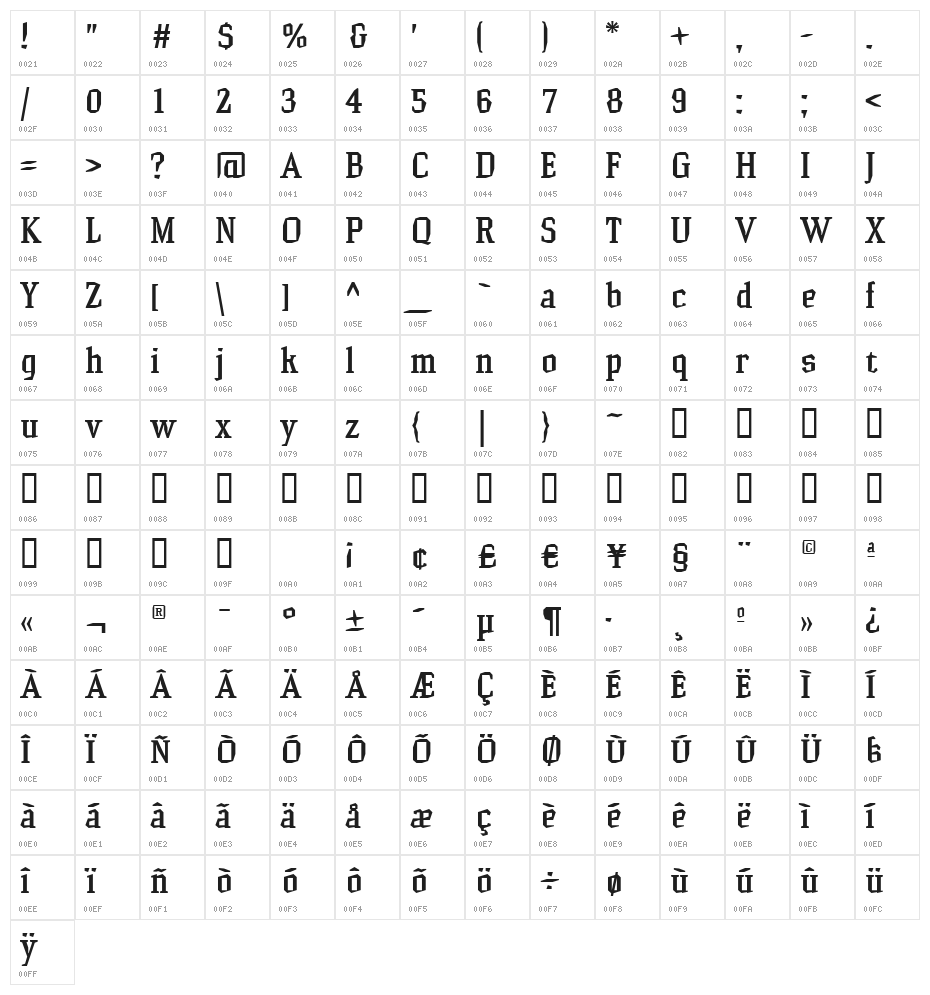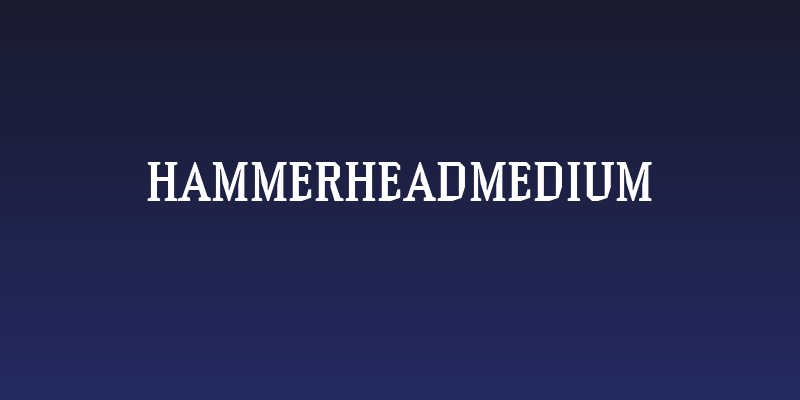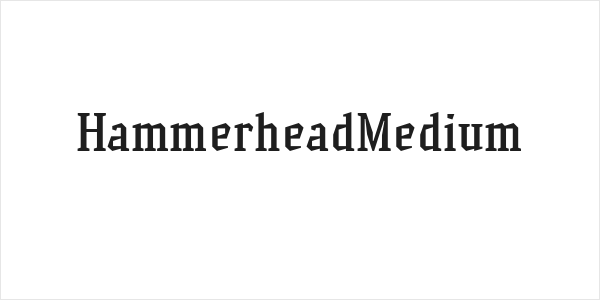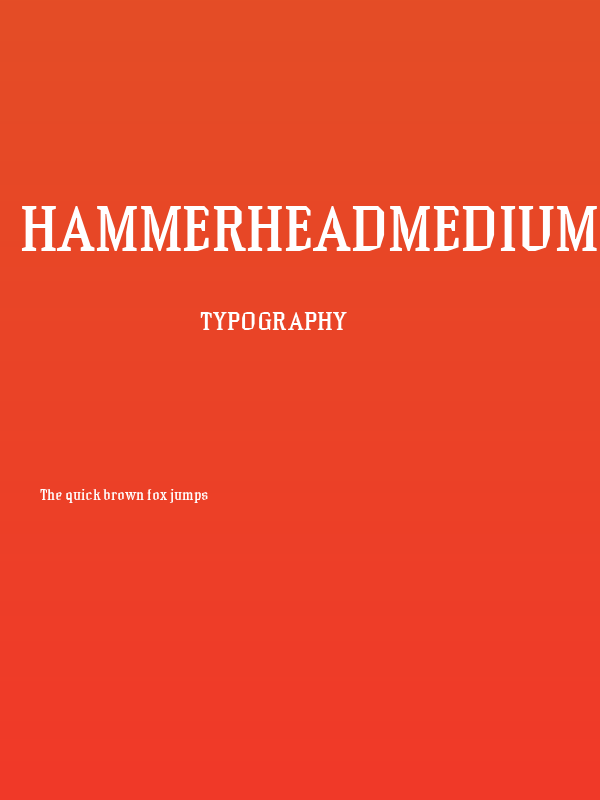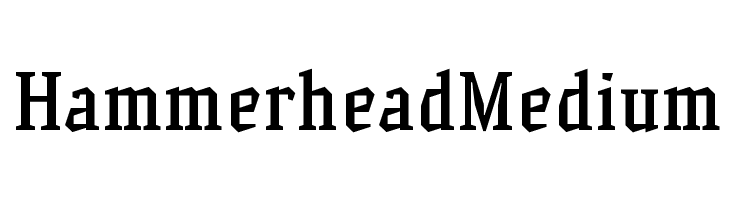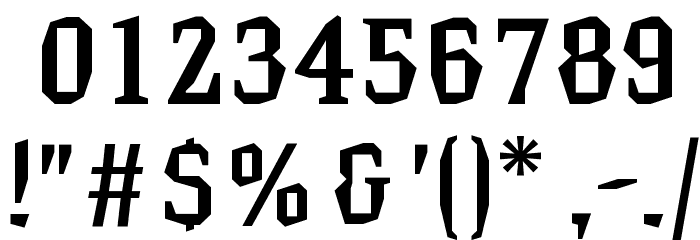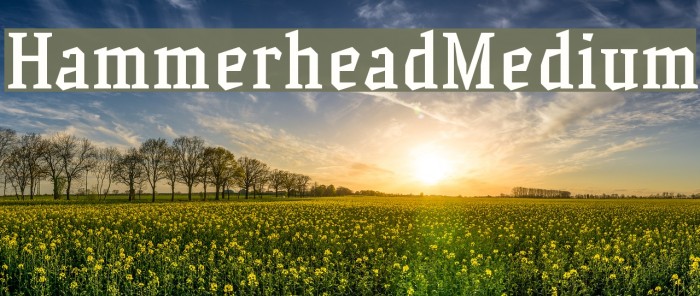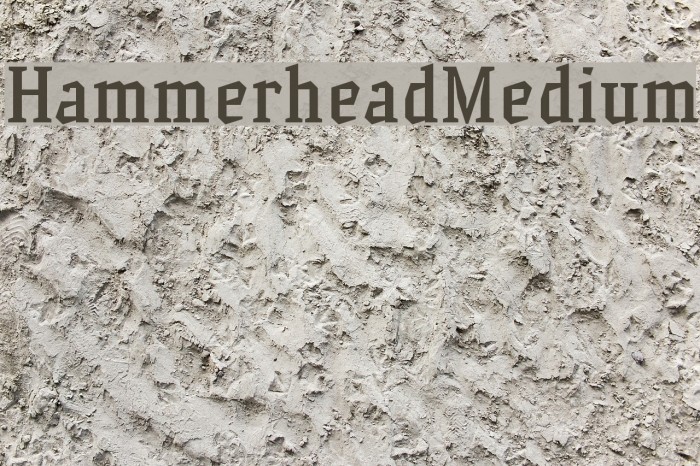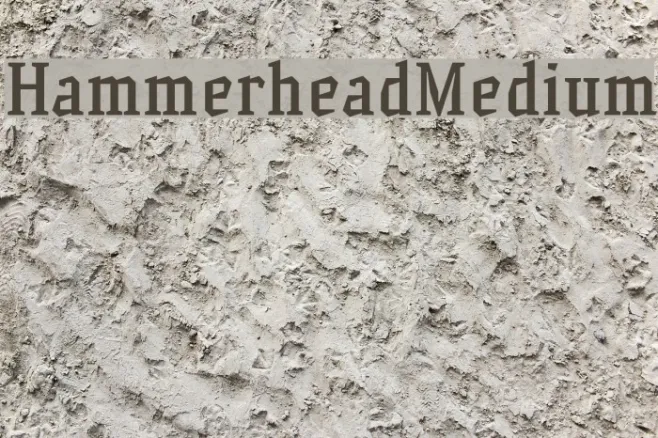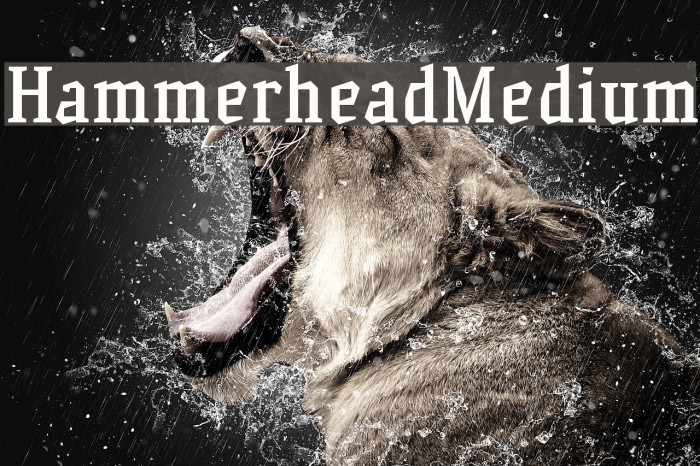
HammerheadMedium Font
HammerheadMedium Description
This font features a bold, angular design with a strong presence, making it ideal for impactful headlines and attention-grabbing text. The characters are sharply defined with a geometric structure, giving them a modern and industrial feel. The uppercase letters are particularly striking, with a uniform height and consistent stroke width that enhances readability. The lowercase letters maintain the same angular style, providing a cohesive look across different text sizes. Numbers and special characters are designed with the same boldness and clarity, ensuring they stand out in any context. Overall, this font is perfect for projects that require a strong, assertive typeface.
| Proposed Projects | Ideal for headlines, posters, branding, and any design requiring a strong visual impact. |